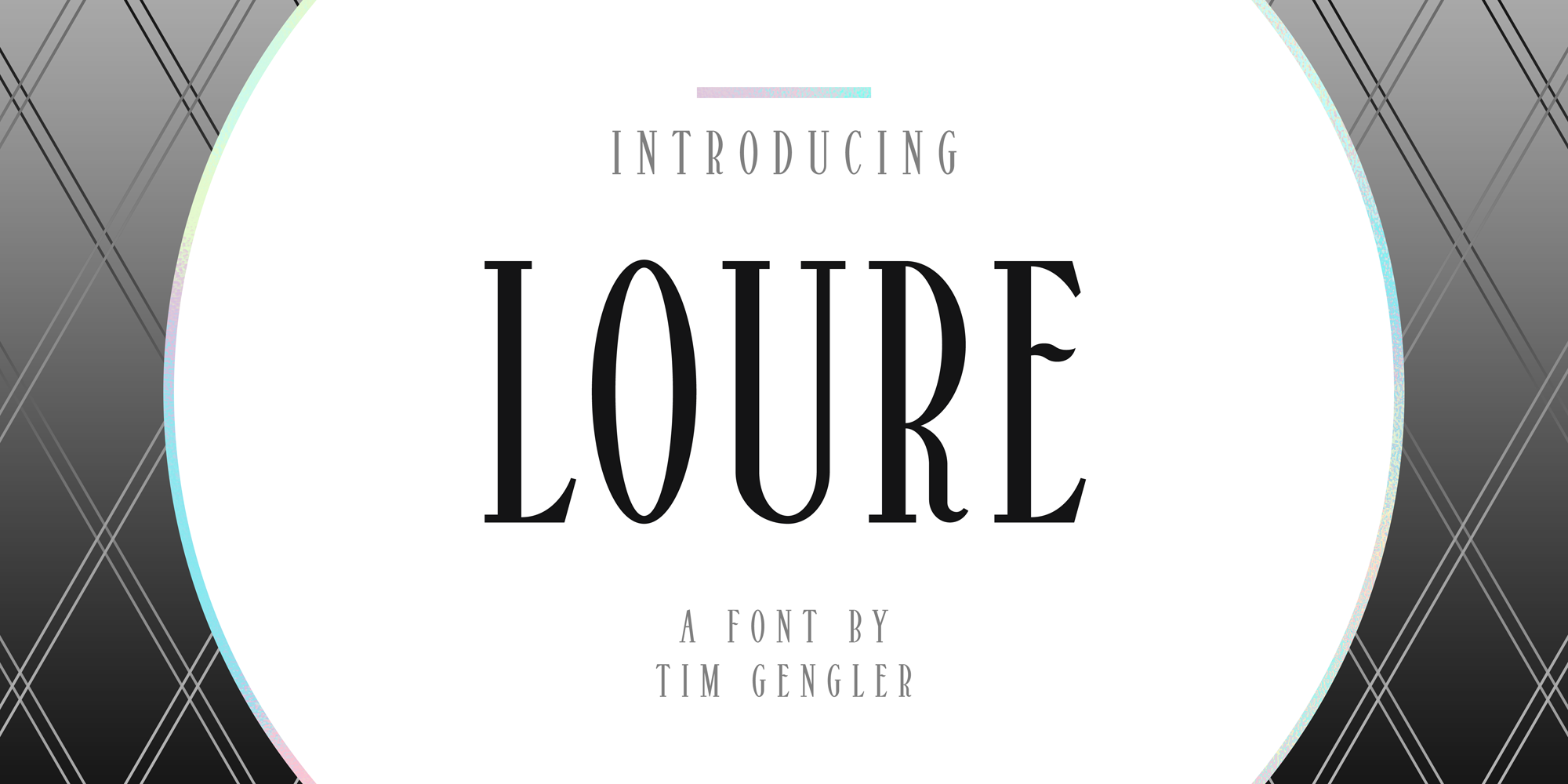
Loure Font is ideal for elegant brand identities, luxury cosmetics packaging, sophisticated wedding stationery, high-end fashion labels, premium spa branding, artisanal product design, boutique hotel signage, refined editorial layouts, exclusive event invitations, and upscale lifestyle marketing. This graceful typeface brings refined elegance and sophisticated charm to designs that require premium aesthetic appeal and luxury positioning.
What makes Loure Font exciting is its captivating blend of feminine grace and contemporary elegance that exudes sophisticated beauty. The font features flowing letterforms with delicate curves and refined details that create visual harmony while maintaining perfect legibility. Its elegant design language combines subtle luxury with approachable sophistication, making it perfect for brands targeting discerning audiences who appreciate refined aesthetics and premium quality in their visual communications.
Loure Font comes in elegant font families including Regular, Bold, Light, Medium, Thin, and their graceful Italic variations. Each family member captures the sophisticated essence of the original design while providing different stylistic weights to create beautiful typographic hierarchies that work seamlessly across luxury branding and premium marketing applications.
Whether you're designing for luxury markets or creating sophisticated brand experiences, Loure Font Free Download offers the perfect combination of elegance and versatility. The font's refined character and luxurious appeal make it an excellent choice for designers working on premium projects that need to communicate sophistication, quality, and refined taste through typography that speaks to affluent audiences seeking exceptional design excellence.